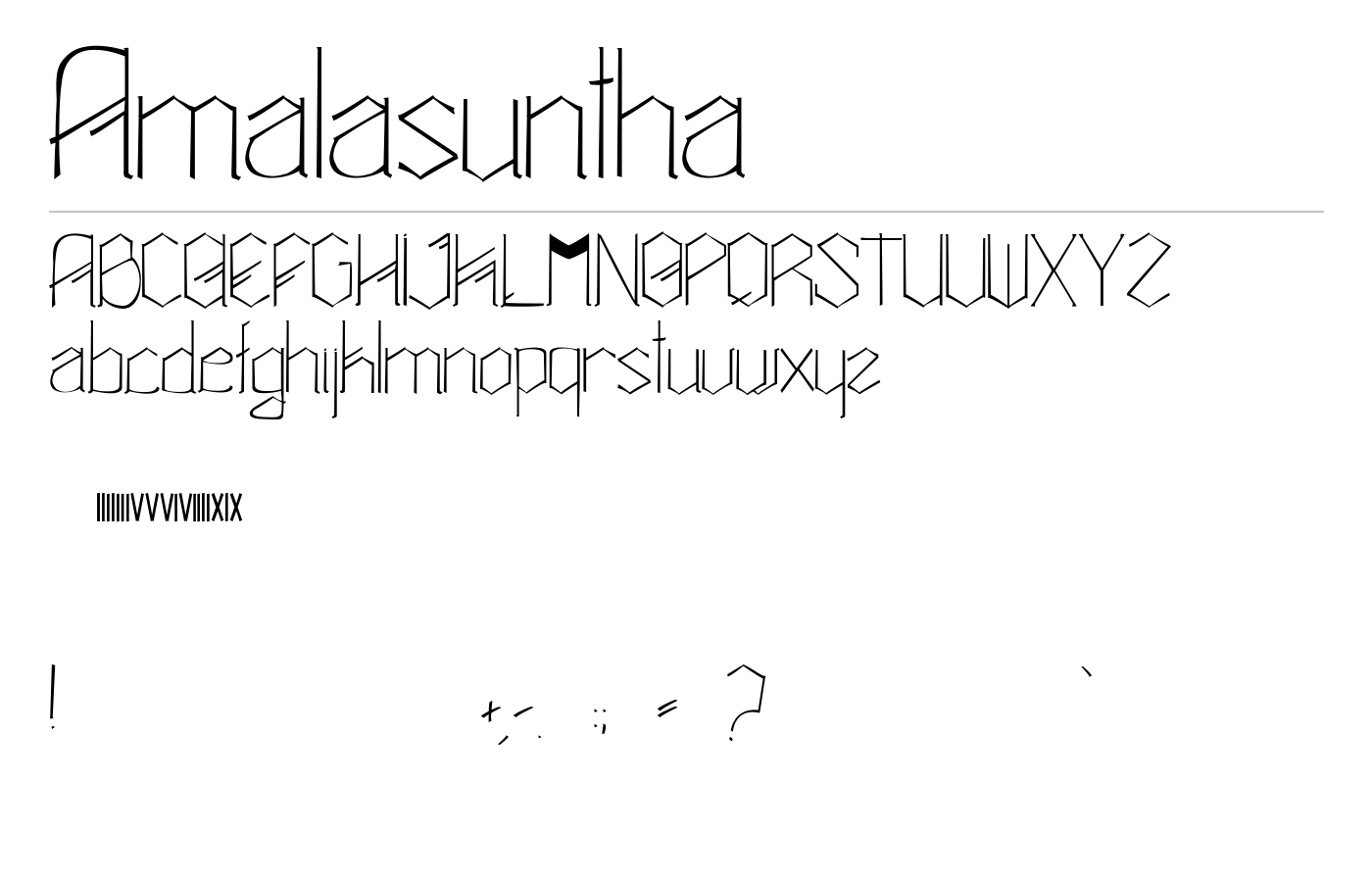
Amalasuntha is a slender, decorative serif font characterized by its tall, narrow letterforms and sharp geometric angles, giving it a distinctly elegant yet edgy appearance. Its fine lines and sharp strokes make it ideal for artistic, vintage, or high-fashion branding where a unique, sophisticated style is desired, especially in logos, headlines, and editorial design that seeks to convey creativity and refinement.
Amalasuntha Font
About Amalasuntha Font
| Font family | Amalasuntha Font |
| Designer | Pilar Celda |